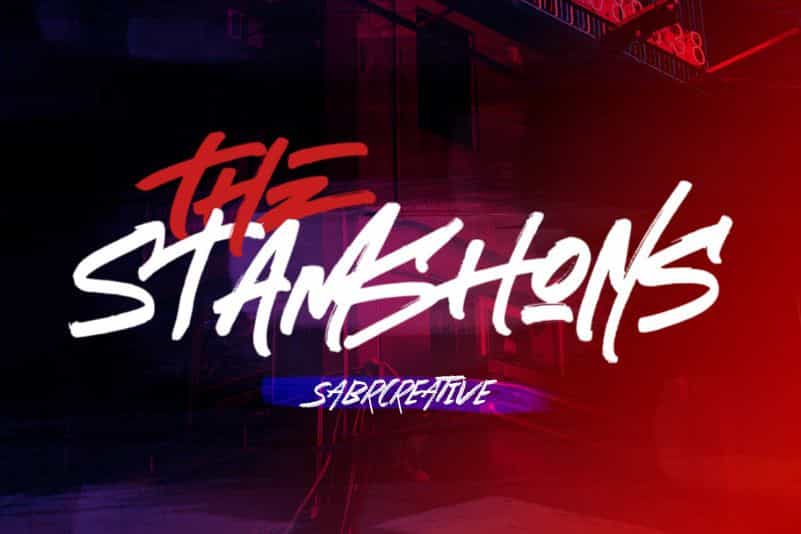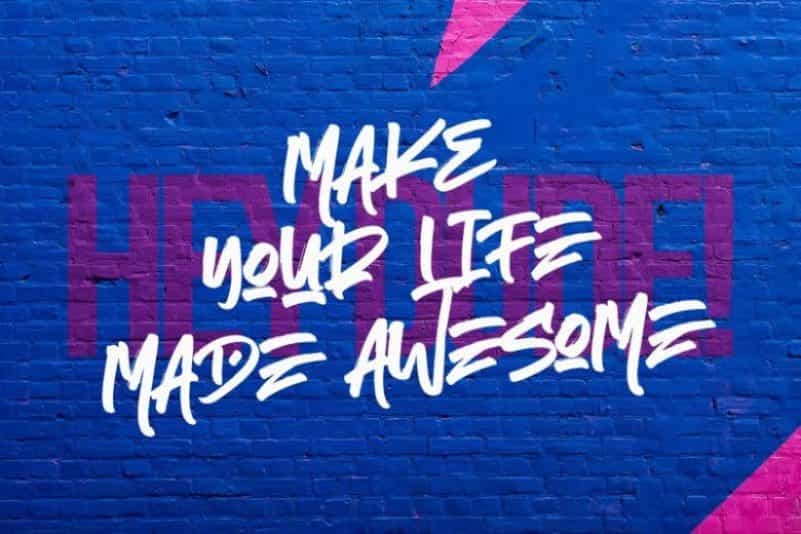
Thank you for introducing The Stamshons Font. This font is a dry brush script with distinct style and passionate movement and is perfect for any of your creative projects. A brush font with a full, strong, and organic style.